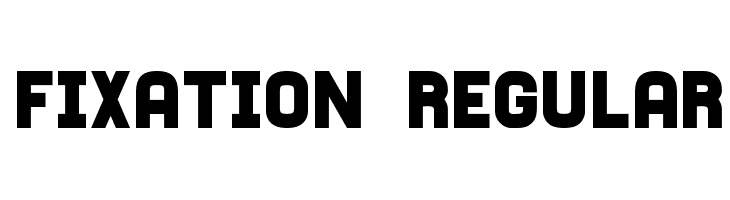
( Sharkshock - Dennis Ludlow - www.sharkshock.net )
A bold, condensed font with strong, impactful uppercase letters.
( Typodermic Fonts - Ray Larabie - www.typodermicfonts.com/ )
A modern, geometric sans-serif font with a clean and balanced design.
( Vladimir Nikolic - www.coroflot.com/vladimirnikolic )
A bold, italic font with sharp angles and a dynamic, modern style.
( Vladimir Nikolic - www.coroflot.com/vladimirnikolic )
A bold, rounded font with uniform strokes and a modern, geometric style.
( Vladimir Nikolic - www.coroflot.com/vladimirnikolic )
A bold, geometric font with a strong and impactful design.
( Vladimir Nikolic - www.coroflot.com/vladimirnikolic )
A bold, italicized font with angular, dynamic characters.
( Vladimir Nikolic - www.coroflot.com/vladimirnikolic )
A bold, collegiate-style font with outlined, blocky characters.
( Zetafonts - www.zetafonts.com )
A bold, high-contrast serif font with a commanding presence.
( deFharo - Fernando Haro - defharo.com )
A bold, stencil-style font with thick strokes and rounded edges.